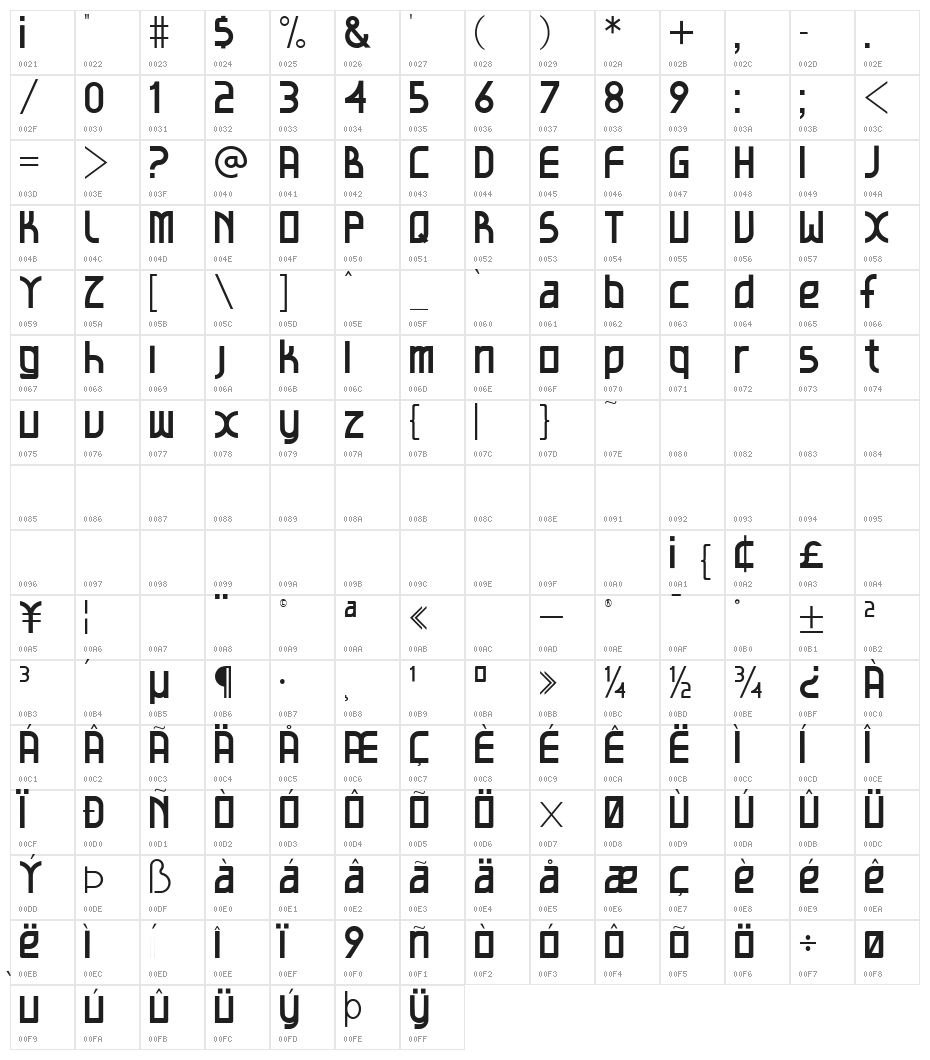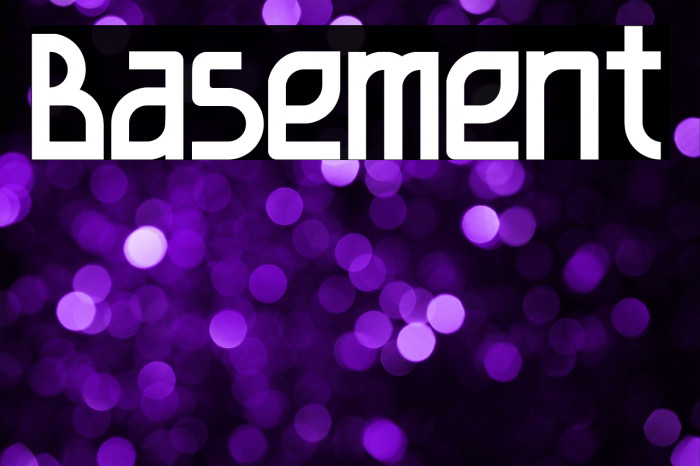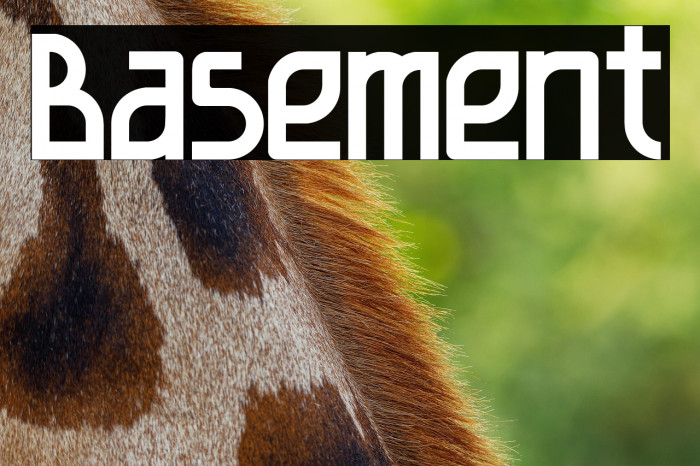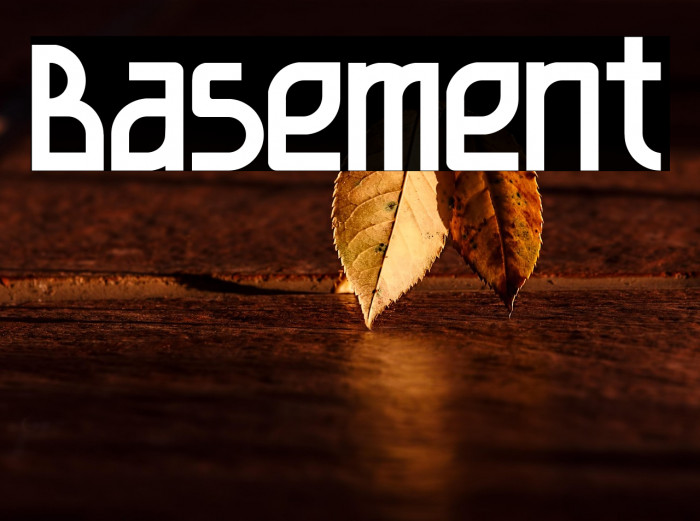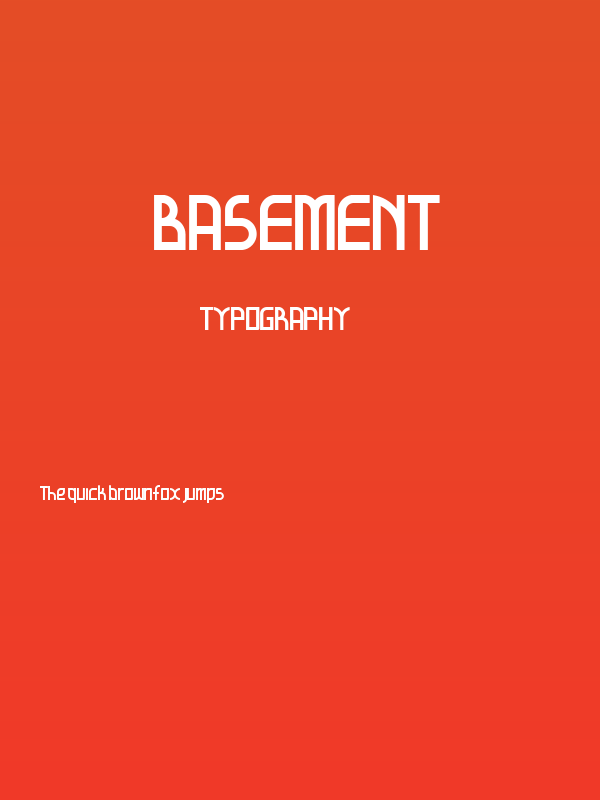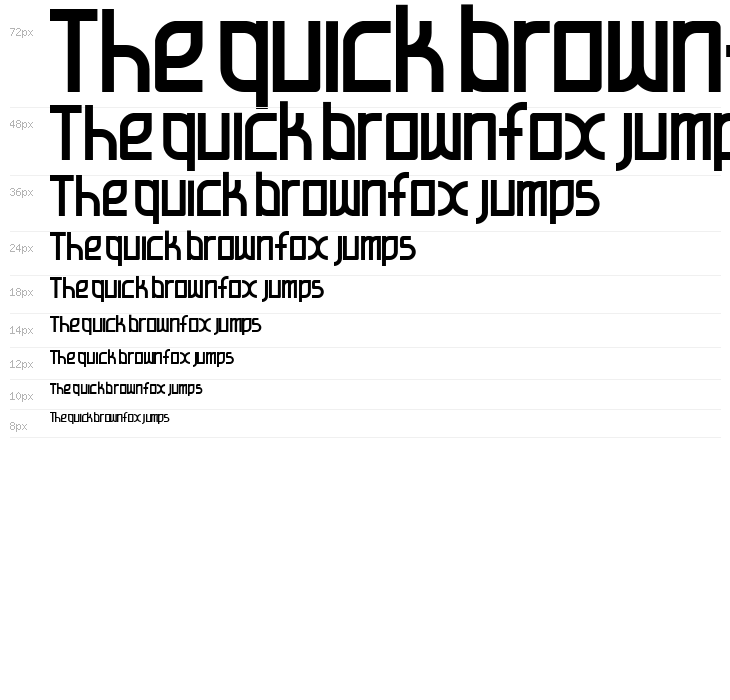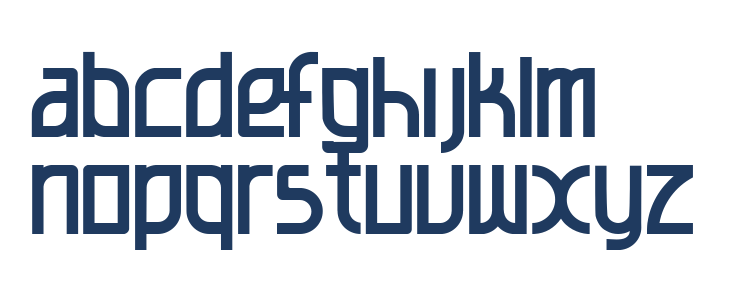
Basement Font
Basement Description
This font features a bold, geometric design with a modern and futuristic aesthetic. The characters are constructed with consistent stroke widths, giving it a uniform and cohesive appearance. The uppercase letters are tall and narrow, while the lowercase letters maintain a similar structure, ensuring readability. The numbers are distinct and align well with the overall style. Special characters are designed to match the boldness and geometric nature of the font, making it versatile for various uses. The font's clean lines and structured form make it suitable for projects that require a contemporary and impactful look.